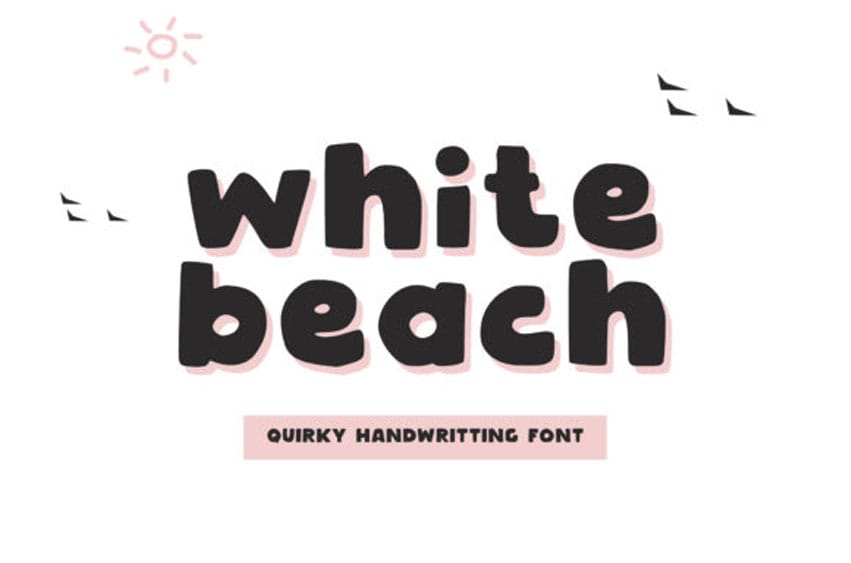
White Beach Font is a cool, bold yet friendly display font. It will elevate a wide range of crafting ideas, from cards, to branding, labels and much more.